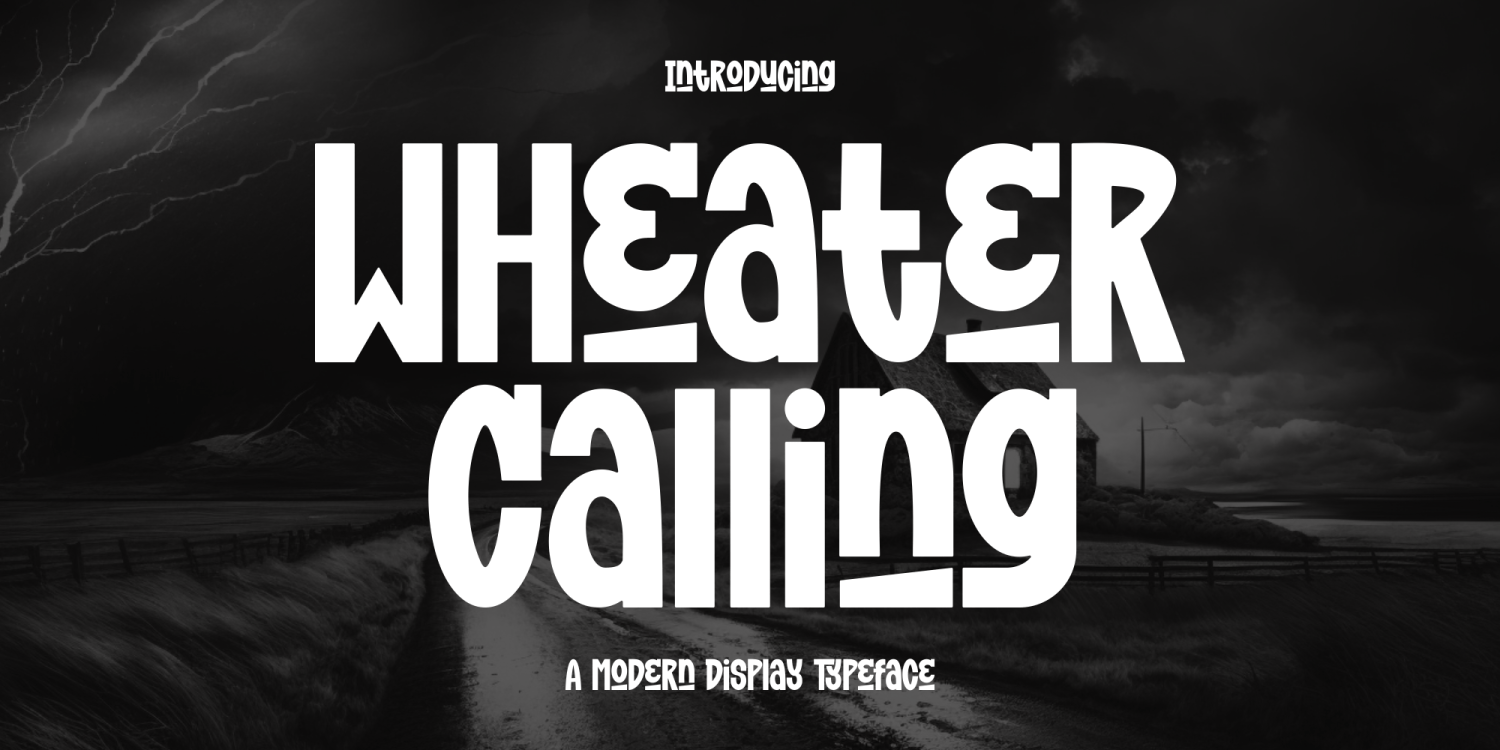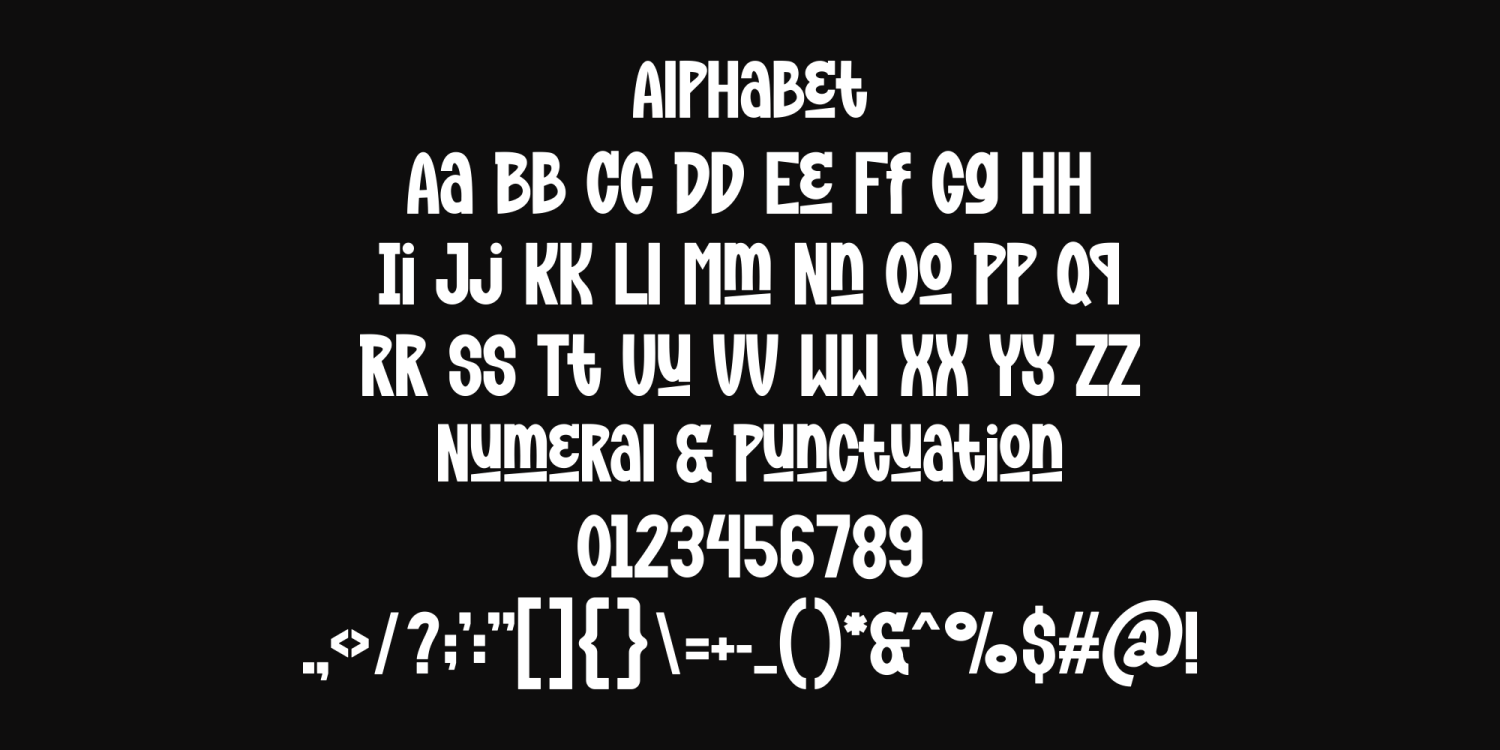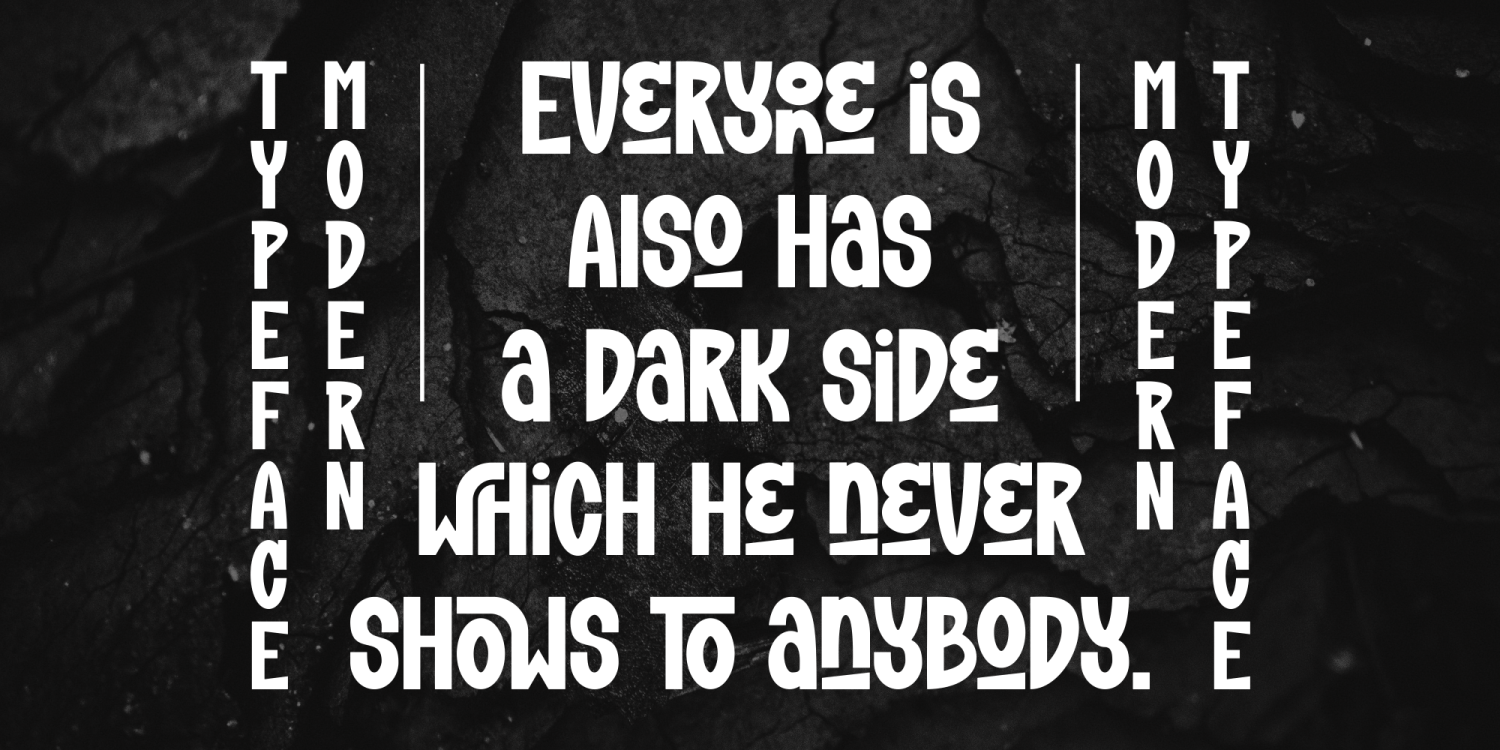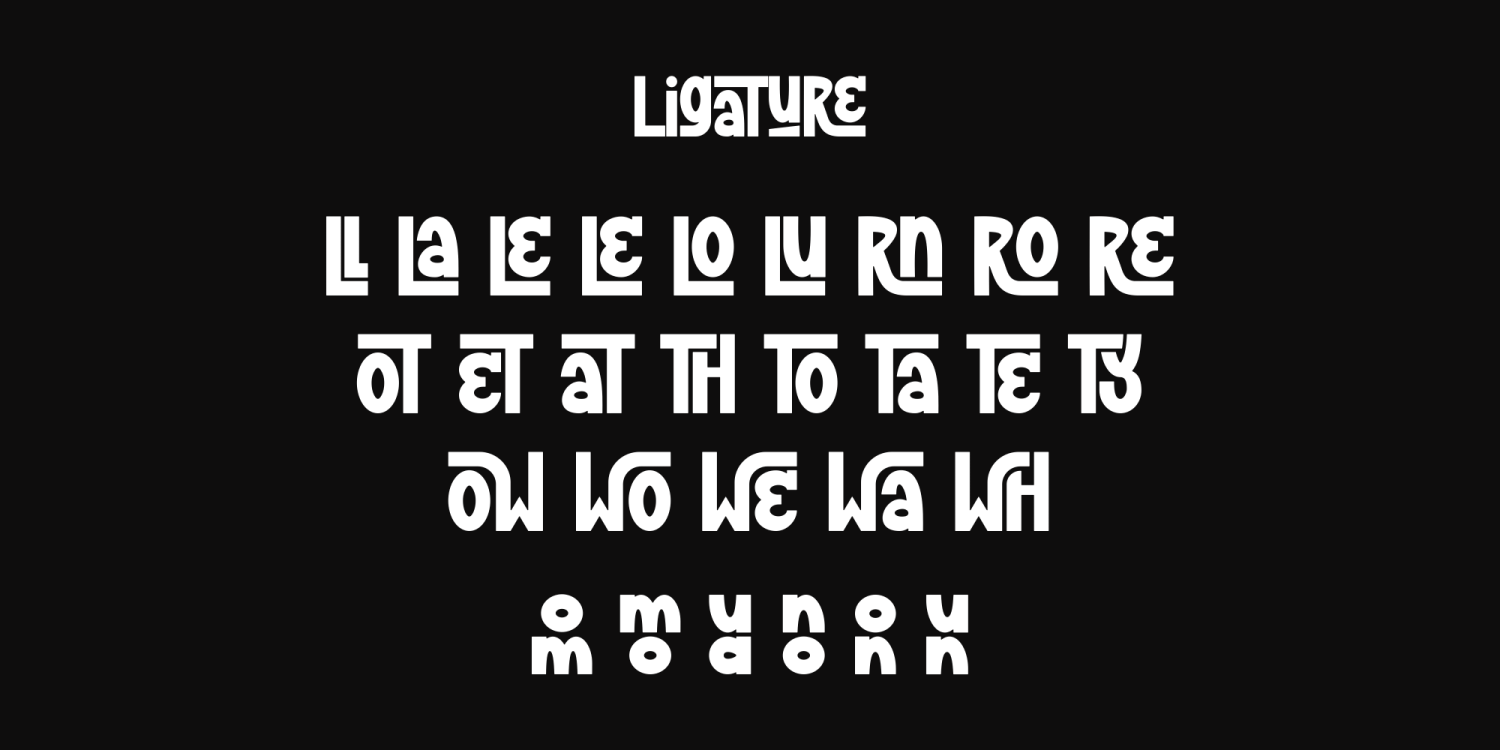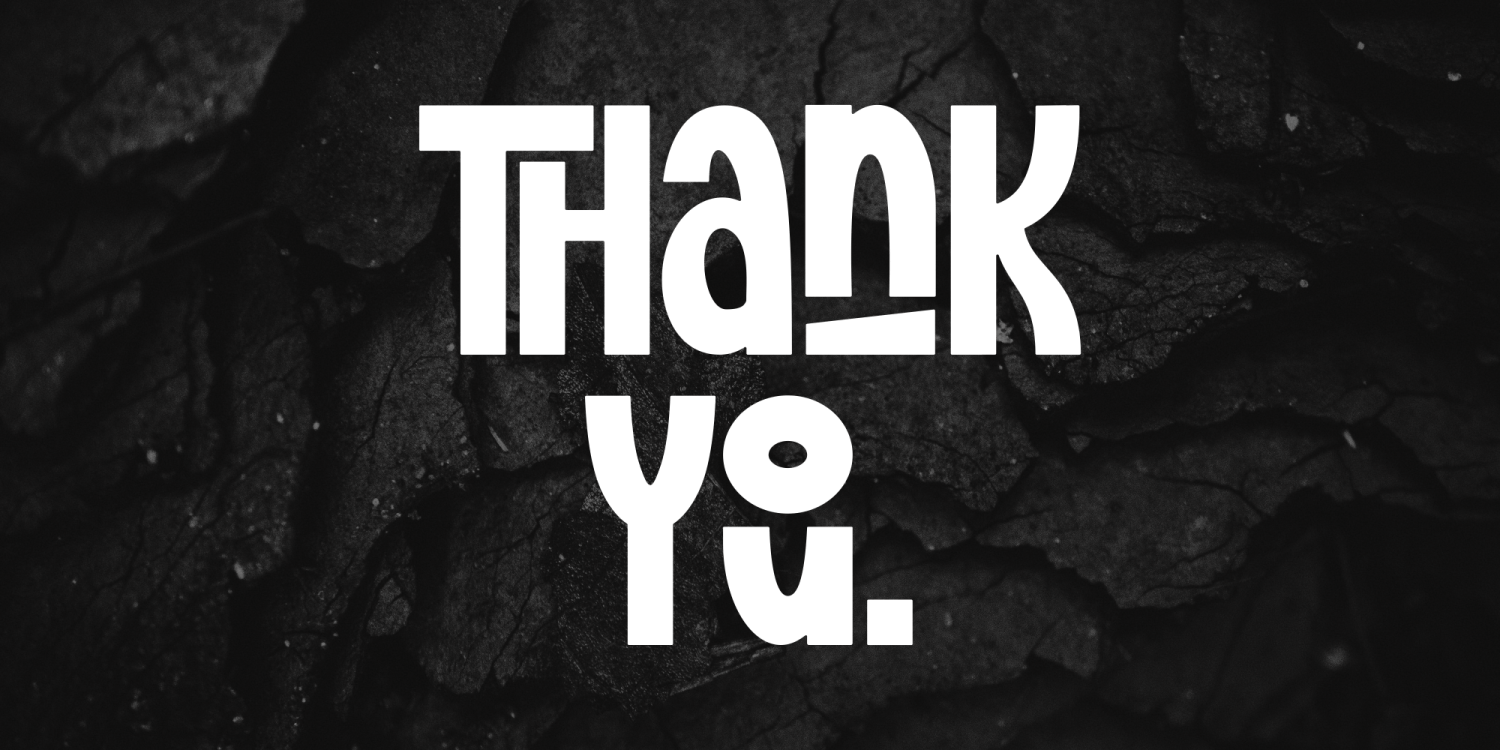
Wheater Calling
Introducing Wheater Calling is a bold and modern sans-serif display font designed to captivate attention with its clean lines and contemporary aesthetic. This typeface stands out not only for its versatility but also for its meticulously crafted ligatures, which add a unique and dynamic touch to its character set.
The font's minimalistic and geometric structure ensures clarity and legibility, making it an excellent choice for headlines, posters, branding, and other display purposes. The carefully integrated ligatures provide a distinctive flair, lending a sense of creativity and sophistication to any design.